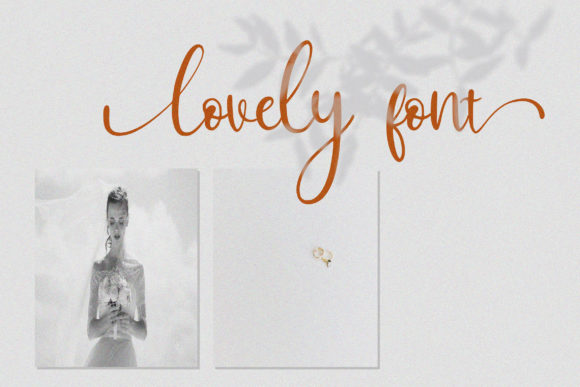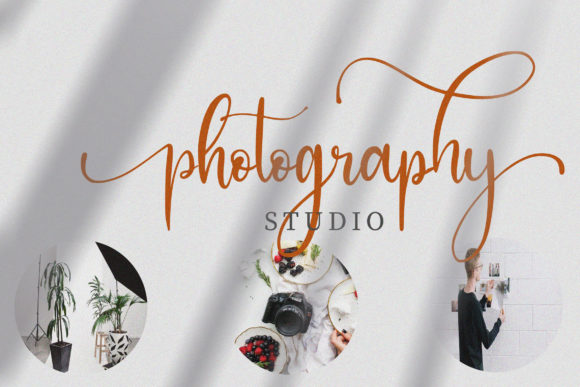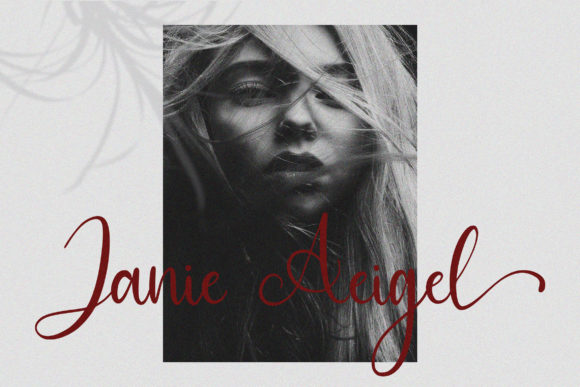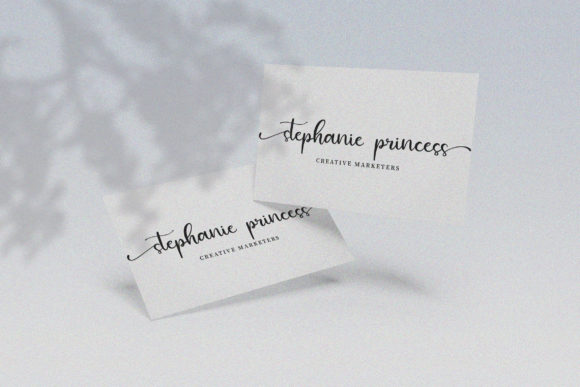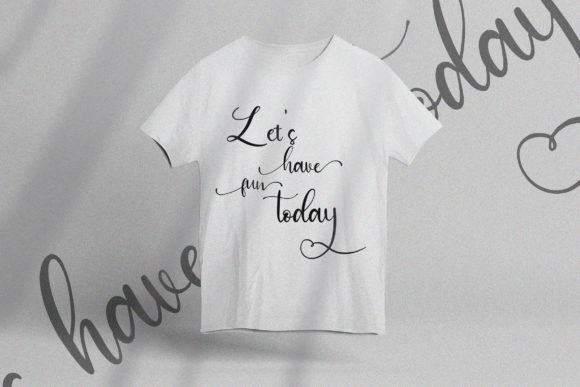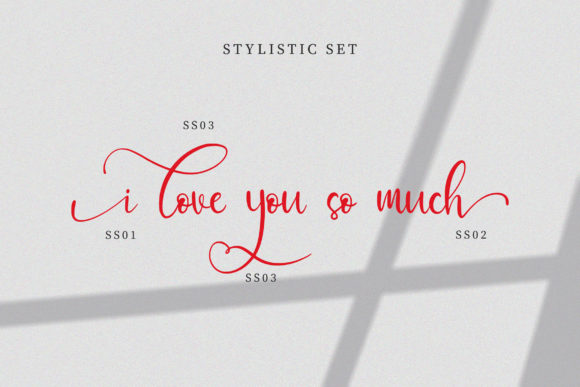
Discover the Elegance of Agatha Font: A Lovely Script Font for Your Designs
Are you looking for a font that can add a touch of romance and femininity to your design projects? Look no further than Agatha Font, a beautiful script font that is sure to captivate your audience. With its elegant and feminine style, Agatha Font is the perfect choice for designers and crafters who want to create stunning visual content.
What is Agatha Font?
Agatha Font is a lovely script font that features a unique and elegant design. Its flowing lines and curves give it a romantic and sophisticated feel, making it perfect for a variety of design projects. Whether you’re creating wedding invitations, branding materials, or social media graphics, Agatha Font is sure to add a touch of class and elegance to your designs.
Characteristics of Agatha Font
So, what makes Agatha Font so special? Here are some of its key characteristics:
- Elegant and Feminine Style: Agatha Font features a delicate and feminine design that is perfect for creating romantic and sophisticated designs.
- Flowing Lines and Curves: The font’s flowing lines and curves give it a beautiful, handwritten feel that is sure to capture your audience’s attention.
- Highly Readable: Despite its elegant design, Agatha Font is highly readable, making it perfect for body text and headings.
- Versatile: Agatha Font can be used for a wide range of design projects, from wedding invitations to branding materials and social media graphics.
Uses of Agatha Font
Agatha Font is a versatile font that can be used for a variety of design projects. Here are some ideas to get you started:
- Wedding Invitations: Add a touch of romance and elegance to your wedding invitations with Agatha Font.
- Branding Materials: Use Agatha Font to create stunning branding materials, such as logos, business cards, and brochures.
- Social Media Graphics: Create eye-catching social media graphics with Agatha Font, perfect for Instagram, Facebook, and Twitter.
- Stationery: Add a touch of elegance to your stationery with Agatha Font, perfect for letters, notes, and cards.
Tips for Using Agatha Font
Here are some tips for using Agatha Font in your designs:
- Pair with a Sans-Serif Font: Pair Agatha Font with a sans-serif font, such as Arial or Helvetica, to create a beautiful contrast.
- Use for Headings and Titles: Use Agatha Font for headings and titles to add a touch of elegance and sophistication.
| Font Name | Agatha Font |
| Author | Juncreative |
In conclusion, Agatha Font is a lovely script font that is sure to add a touch of romance and elegance to your design projects. With its elegant and feminine style, flowing lines and curves, and high readability, Agatha Font is the perfect choice for designers and crafters who want to create stunning visual content. Whether you’re creating wedding invitations, branding materials, or social media graphics, Agatha Font is sure to captivate your audience.